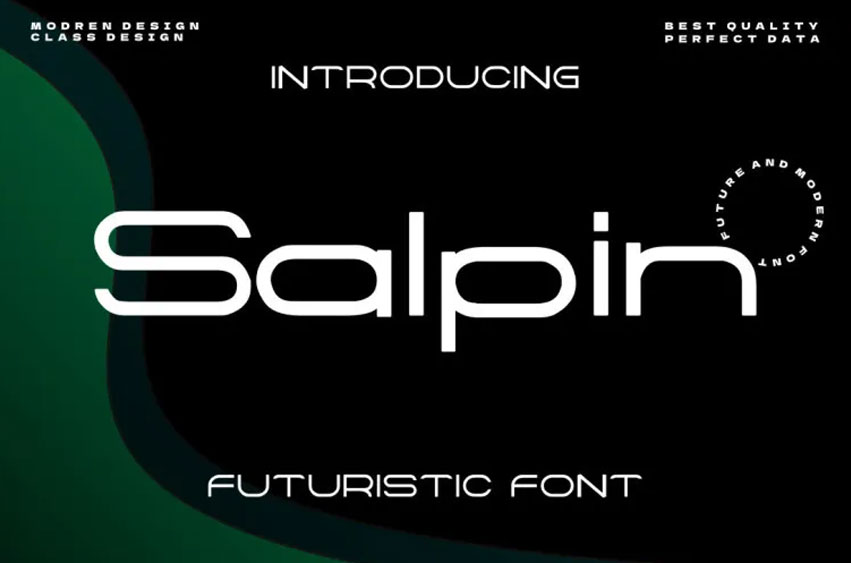
Salpin Font is an extraordinary robotic display font perfect for writing website designs and business cards as well as anything that requires an individual touch.
It will certainly amaze your readers.